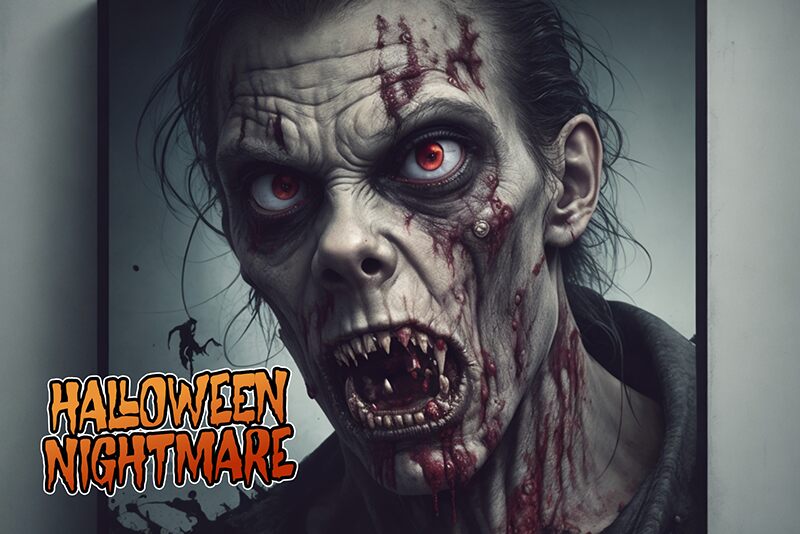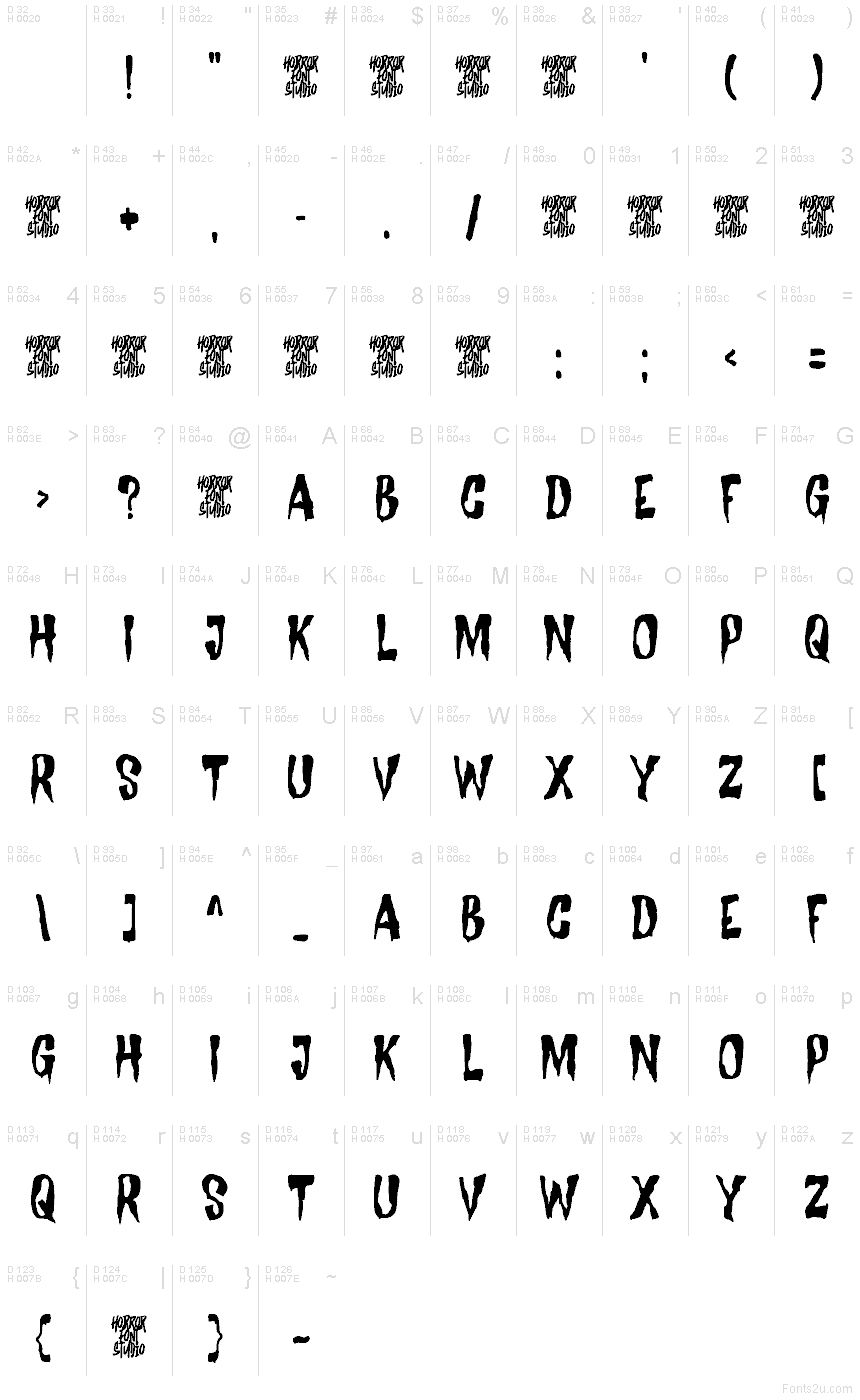
Mystique Darkness
Mystique Darkness font by Horror Font is a free scary display font that turns titles into a creeping chill. Each letter looks claw-torn and inky, with dripping tips and jagged bites that feel ripped from a midnight marquee. The rhythm stays readable while the edges stay wicked, giving you bold impact without losing clarity.
Using Mystique Darkness, horror posters, haunted house flyers, slasher movie titles, escape room branding, game splash screens, and Halloween merch all gain a raw, cinematic shiver. This free font thrives big and loud—push the size and add a touch of tracking for breath. Pair it with a clean grotesque sans for body copy to keep the fear focused.